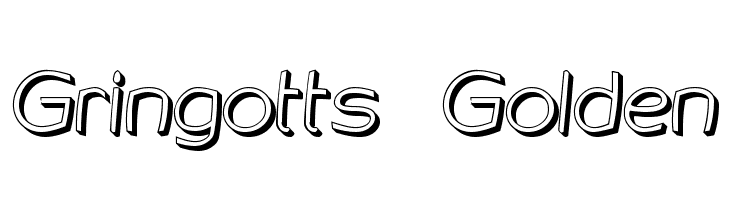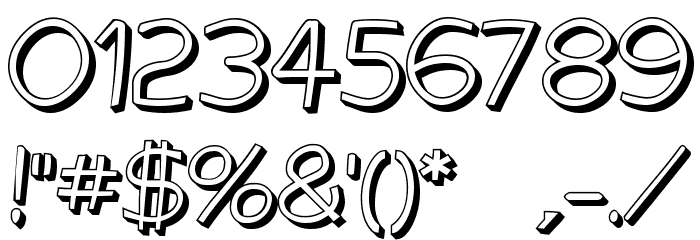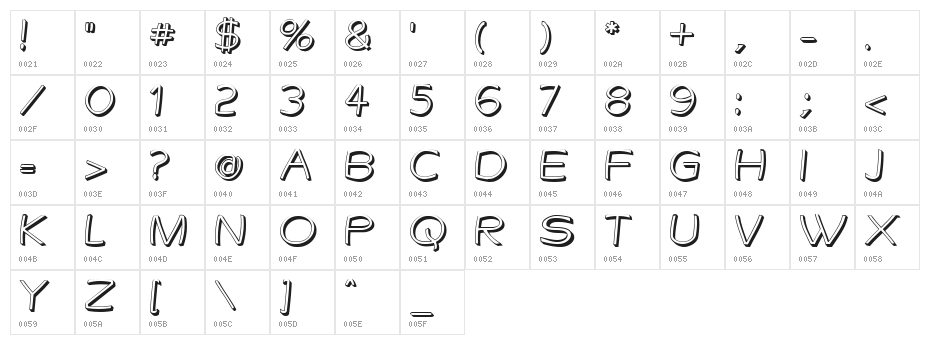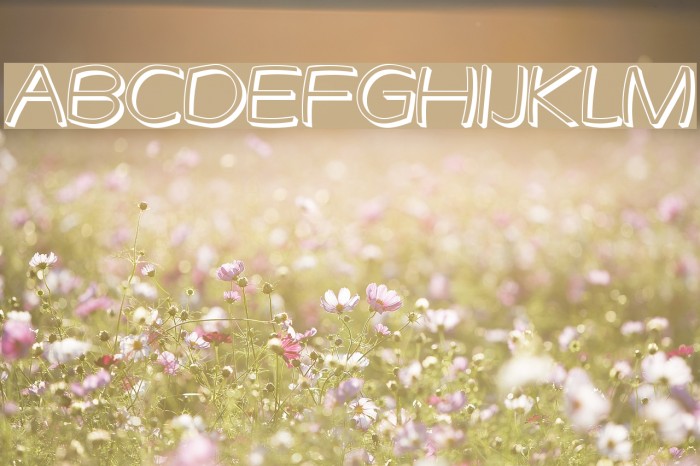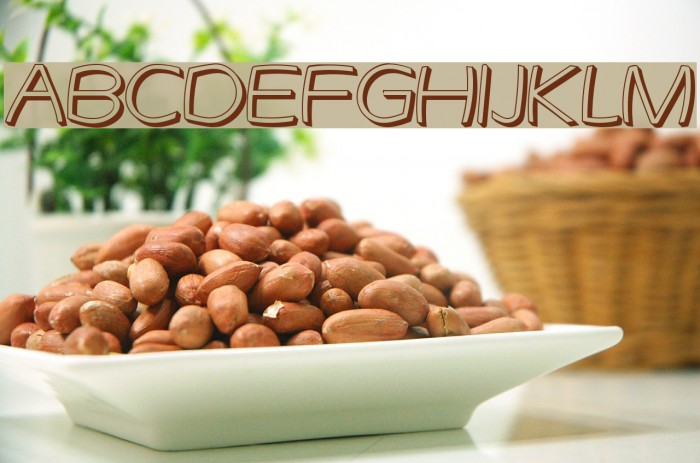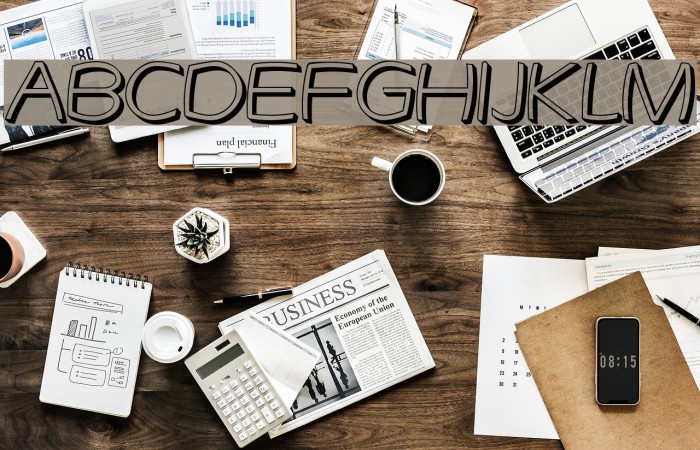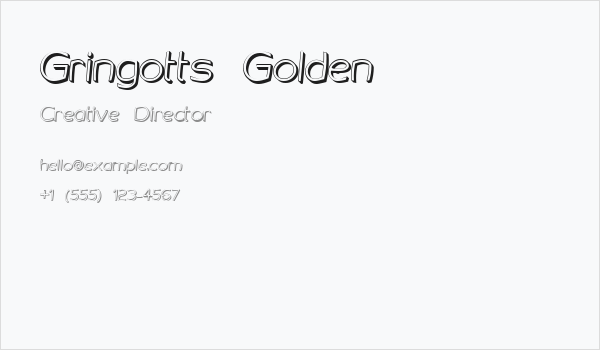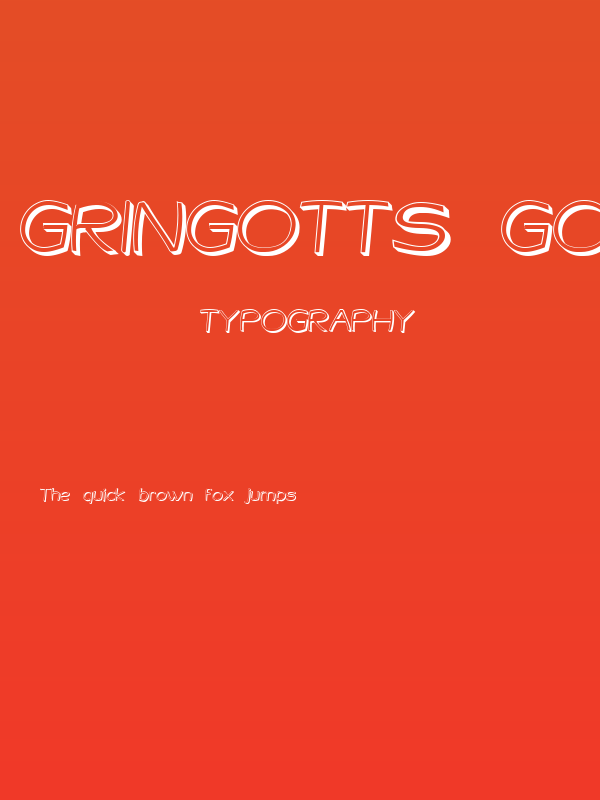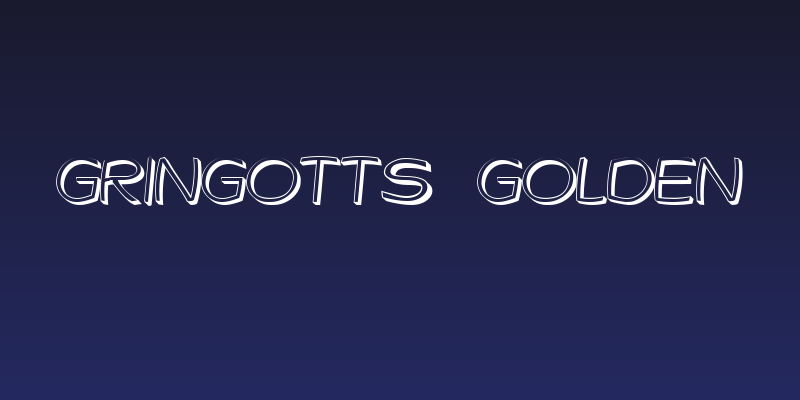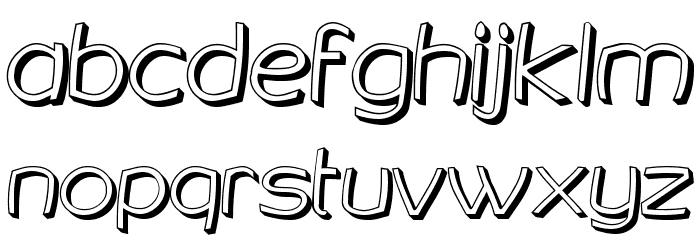
Gringotts Golden Font
Gringotts Golden Description
This font features a bold, three-dimensional style with a shadow effect that gives it a striking and dynamic appearance. The characters are sans-serif with smooth curves and clean lines, creating a modern and playful look. The uppercase and lowercase letters maintain a consistent style, with rounded edges and a slight tilt that adds a sense of movement. The numerals and special characters follow the same design principles, ensuring uniformity across all glyphs. This font is ideal for projects that require a bold and eye-catching typeface, such as posters, headlines, and branding materials.
| Proposed Projects | Ideal for posters, headlines, branding, and any project needing a dynamic and bold typeface. |